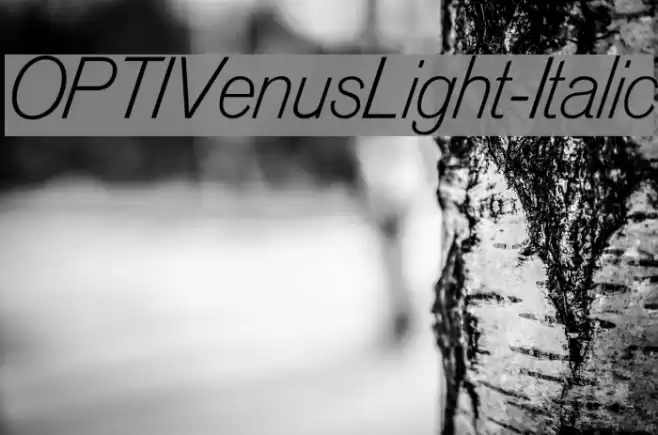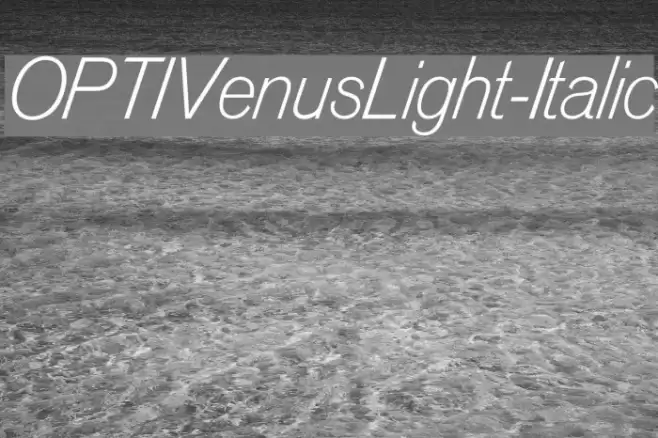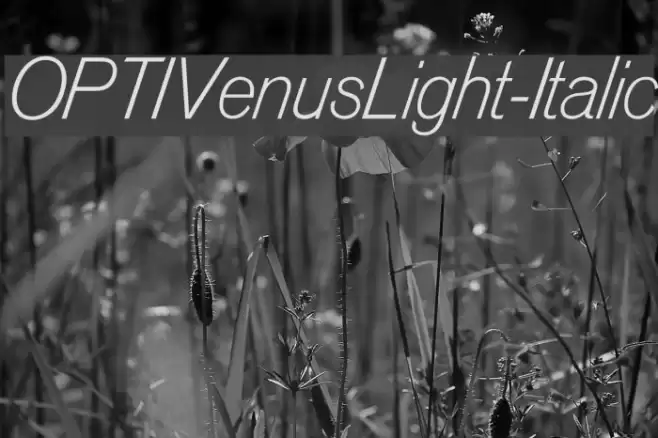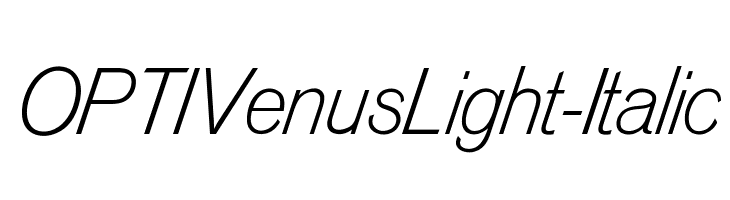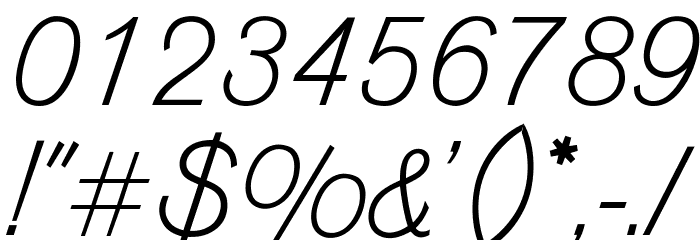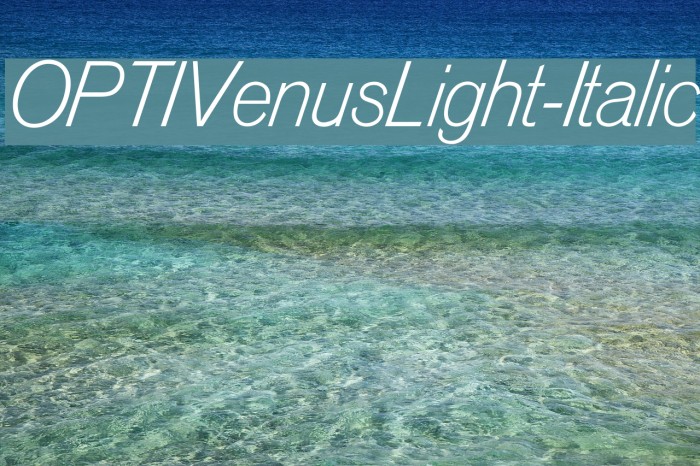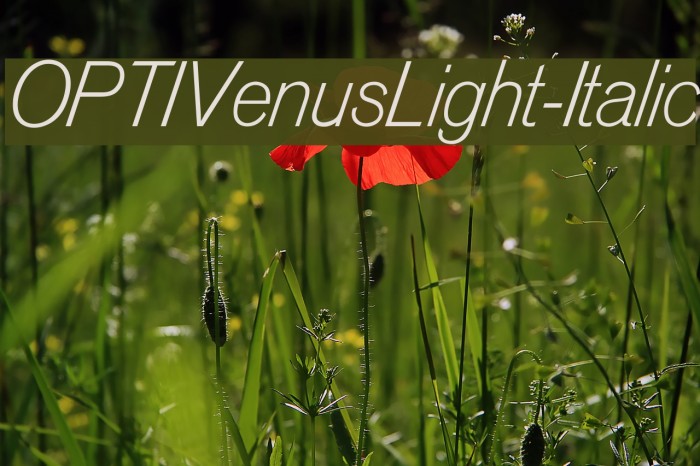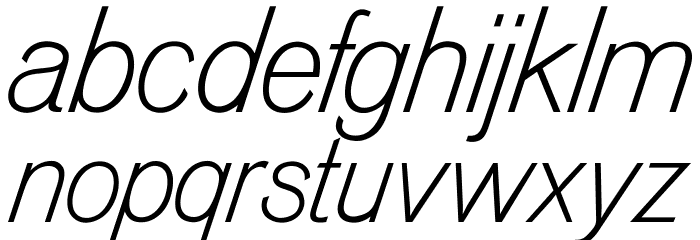
OPTIVenusLight-Italic Font
OPTIVenusLight-Italic Description
This font features a sleek and elegant design with a light weight and italic style. The characters are slightly slanted, giving a sense of motion and fluidity. The strokes are thin and consistent, contributing to a clean and modern appearance. The uppercase and lowercase letters are well-proportioned, with a harmonious balance between them. The numerals are clear and legible, maintaining the same thin stroke width as the letters. Special characters are included, matching the overall aesthetic of the font. This typeface is ideal for projects that require a sophisticated and contemporary look.
A sleek, light, and italic font with a modern and elegant design from Uncategorized fonts.